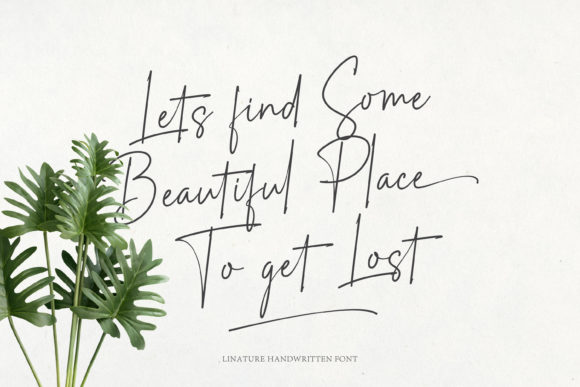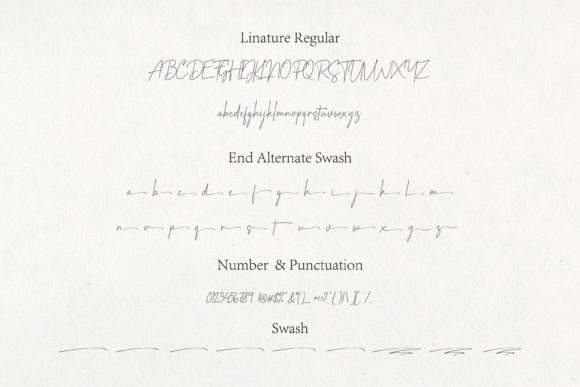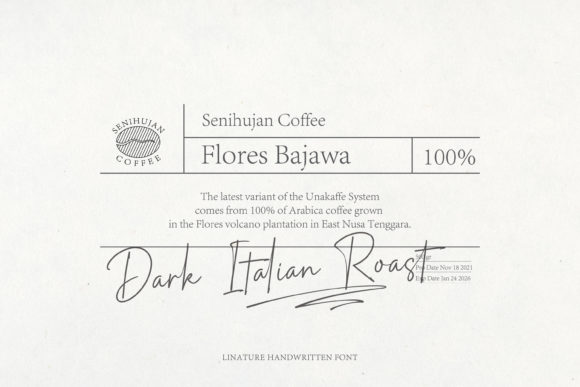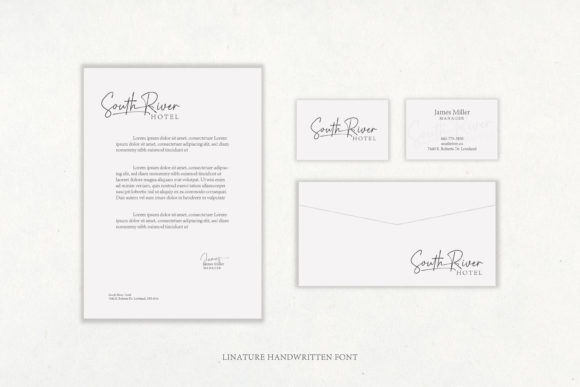
About Linature Font
Linature is a lovely and delicate script font that exudes elegance and class. This font is PUA encoded which means you can access all glyphs and swashes with ease!